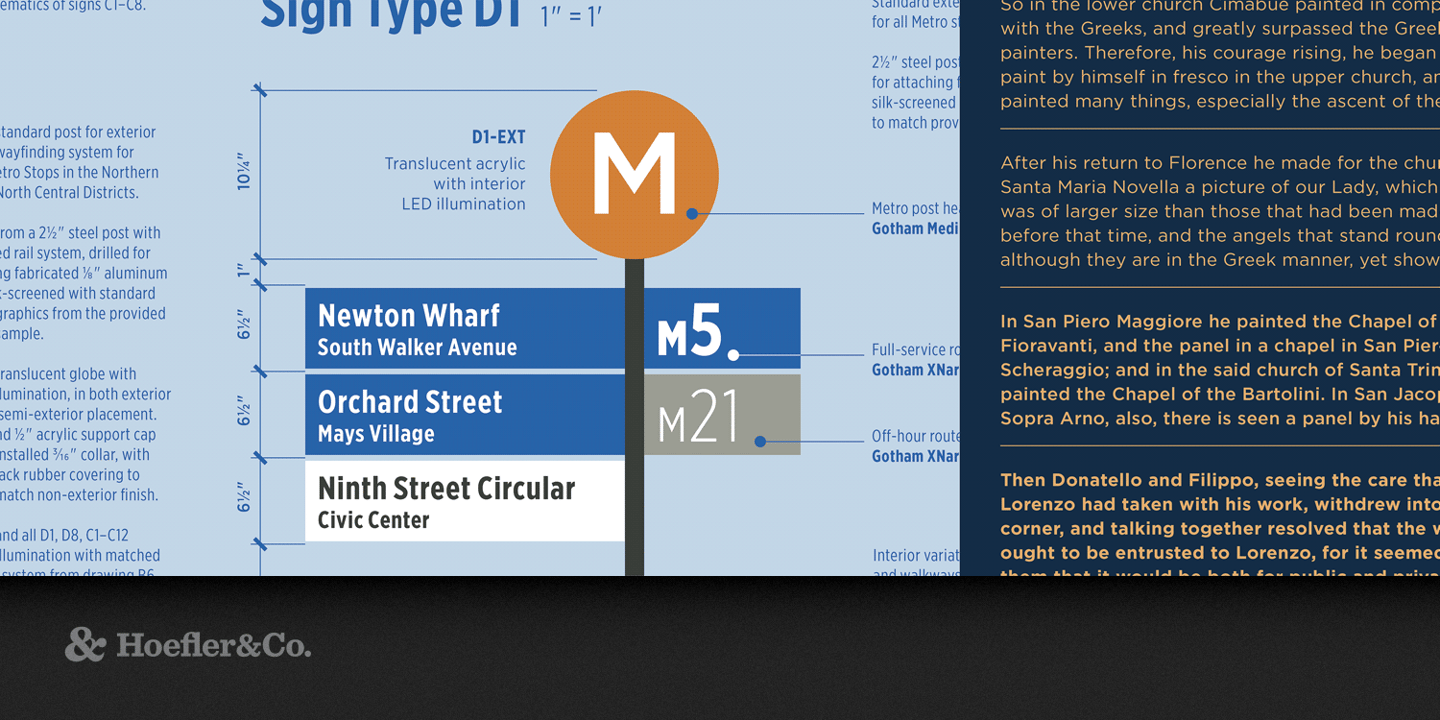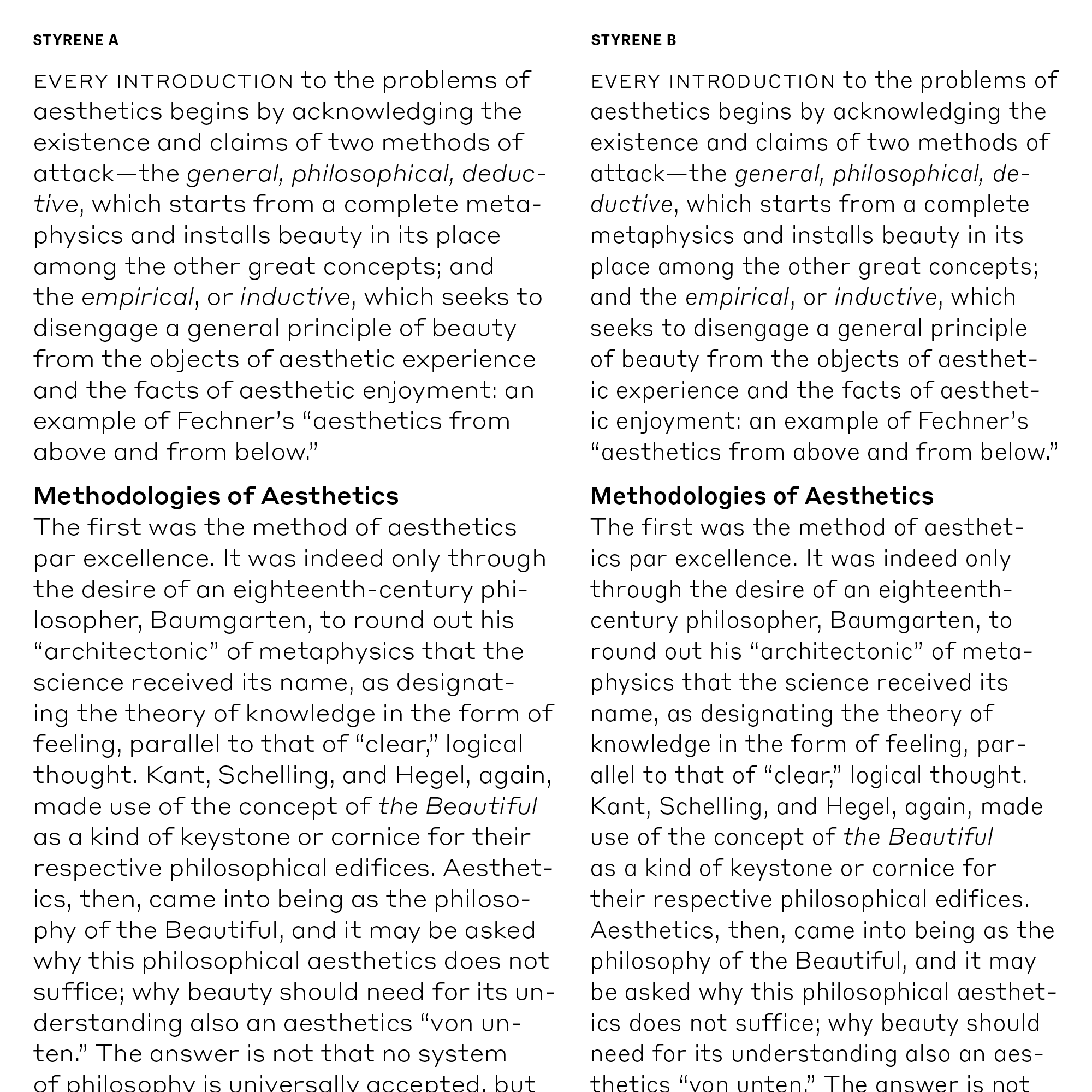
Gotham Narrow vs Styrene
Gotham Narrow and Styrene are both sans-serif typefaces sharing a geometric foundation. Where Gotham Narrow leans modern, Styrene brings signage, expressive. Compare which suits your Branding project.
Recommended: Gotham Narrow
- modern design character
- Suited for Ui and Advertising
- From Hoefler&Co
Consider: Styrene
- signage, expressive design character
- Suited for Display and Tech
- From Commercial Type